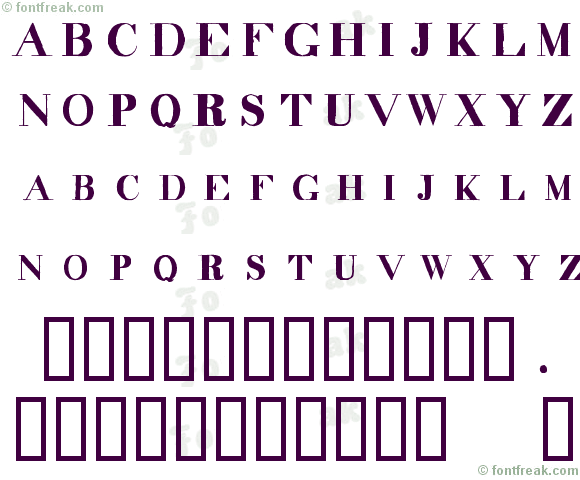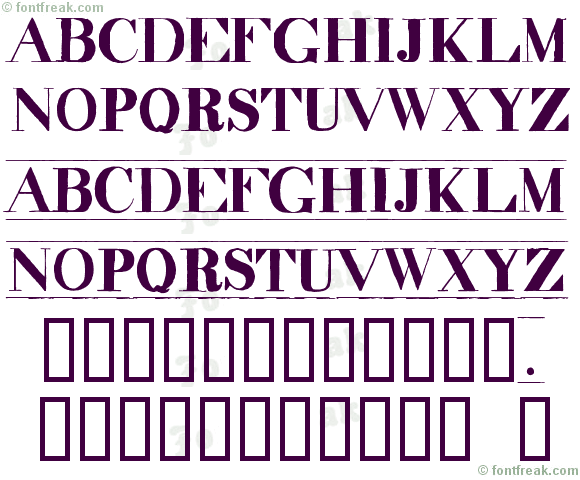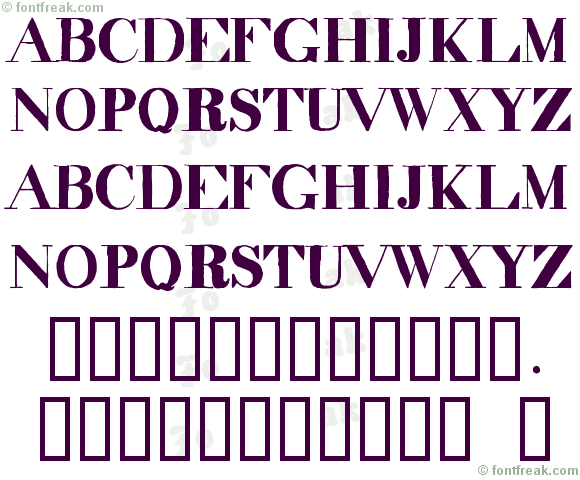
decadence
decadence itd condensed marquee
decadence condensed
decadence without the diamonds
decadence in the dark
decadence in a different light
decadence itd condensed
Decadence is a striking display font designed by Steven J. Lundeen in 1997. This unique typeface embodies a blend of elegance and boldness, making it a standout choice for various creative projects. As a decorative font, Decadence features a condensed structure with an artistic flair, characterized by its distinctive stroke weight and high contrast. The carefully crafted letterforms are adorned with decorative diamond elements, adding an air of sophistication to any design. The spacing is thoughtfully executed, ensuring readability while maintaining an eye-catching aesthetic.
This font is particularly well-suited for a range of use cases. It can elevate wedding invitations with its romantic and elegant style, making special occasions even more memorable. Additionally, Decadence is ideal for movie posters, where its dramatic presence can capture attention and evoke intrigue. Restaurant menus can also benefit from this font's refined look, enhancing the dining experience by adding a touch of class. Furthermore, small business owners can leverage Decadence for branding materials, giving their logos and promotional items a unique character that resonates with their target audience.
What truly sets Decadence apart is its ability to convey both a sense of nostalgia and modernity. Lundeen’s thoughtful design captures the essence of vintage elegance while remaining versatile enough for contemporary applications. Whether used in print or digital formats, Decadence is a font that can transform ordinary text into extraordinary visual statements.